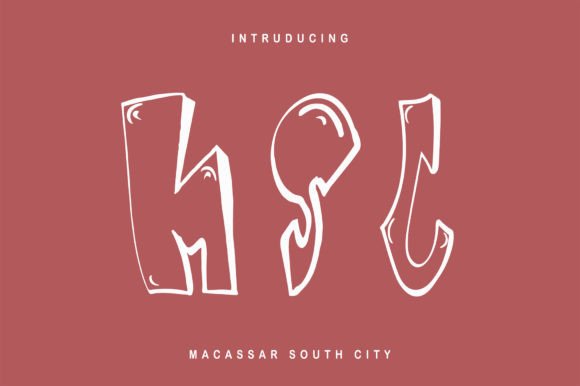
Introduction to Msc Font
Do you ever find yourself stuck in a creative rut, surrounded by blank sheets of paper and a mind full of ideas that just won’t materialize? For many designers, this is a familiar feeling, but what if we told you there’s a secret ingredient that could unlock your full creative potential? Enter the Msc Font, a fun and bold display font that’s perfect for adding a touch of whimsy to your next crafty project.
With its transparent background and high-quality design, the Msc Font is a valuable resource for designers looking to add some personality to their work. Whether you’re working on a personal project or a client brief, this versatile font is sure to impress. And the best part? It’s available for free download, making it a must-have for any serious design enthusiast.
Key Features of Msc Font
- High-quality design resource with a modern and creative feel, ideal for various creative projects.
- Features a transparent background, making it easy to overlay on any design element without compromising its clarity.
- Includes multiple font styles, including regular, bold, italic, and bold-italic, providing designers with a range of options for their creative project.
- Designed with a high resolution of 300 DPI, ensuring crisp and clear text display even at larger font sizes.
- Perfect for use in graphic design, digital art, and other creative projects that require a unique and stylish font.
Honest Review: Msc Font
As a designer, I’m always on the lookout for high-quality design resources that can elevate my creative project. Recently, I came across Msc Font, and I have to say, it’s been a game-changer for me.
- ✨ High-quality glyphs: The Msc Font offers crisp, clean, and well-designed glyphs that are perfect for any design project.
- ✨ Transparent background: The font’s transparent background makes it easy to use it on any background or image.
- ⚠️ Limited language support: Unfortunately, Msc Font only supports a limited number of languages, which can be a drawback for designers working on multilingual projects.
- ⚠️ Not ideal for small text: While the font looks great at larger sizes, it can be difficult to read at smaller text sizes.
Overall, I’m impressed with Msc Font and would definitely recommend it to designers looking for a high-quality, free font for their creative project. With its crisp glyphs, transparent background, and free download, it’s a great addition to any design resource library.
Tips for Getting the Most Out of Msc Font
Use the Msc Font on a transparent background to create a clean and modern design. Experiment with different font sizes and styles to add visual interest to your project.
The Msc Font is a versatile design resource that can be used in a variety of creative projects, including logos, graphics, and documents. Its high-quality design makes it perfect for use in business presentations, marketing materials, and more.